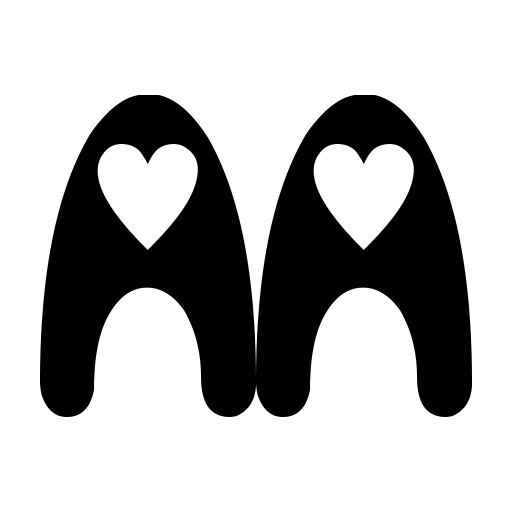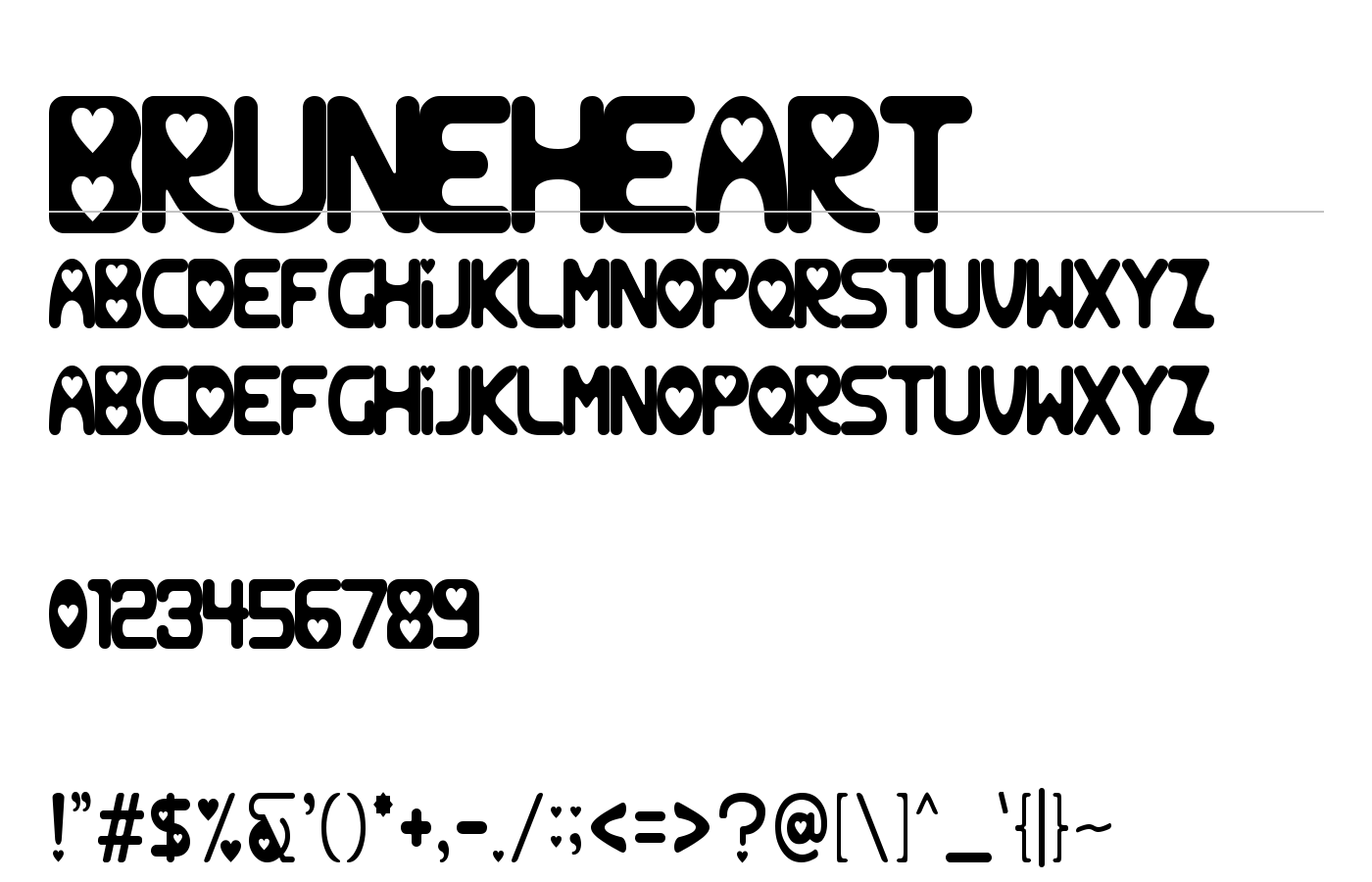
Bruneheart is a playful, bold sans serif font featuring rounded letterforms with charming heart-shaped cutouts that add a whimsical, romantic touch. Its thick strokes and compact style give it a friendly and inviting appearance, perfect for creating eye-catching headlines, logos, or decorative designs that evoke warmth and affection. This font works especially well for children’s products, valentines, or any creative project needing a joyful and expressive personality.
Bruneheart Font
About Bruneheart Font
| Font family | Bruneheart Font |
| Designer | Naashir Mubarok |